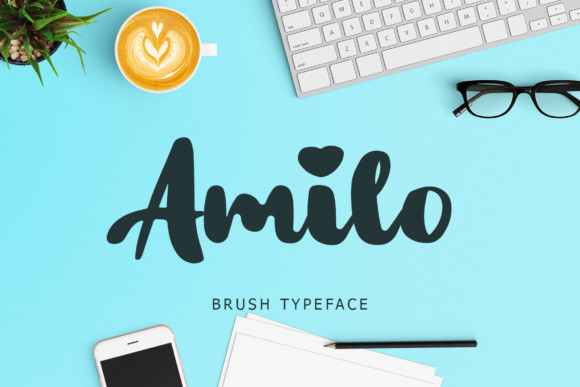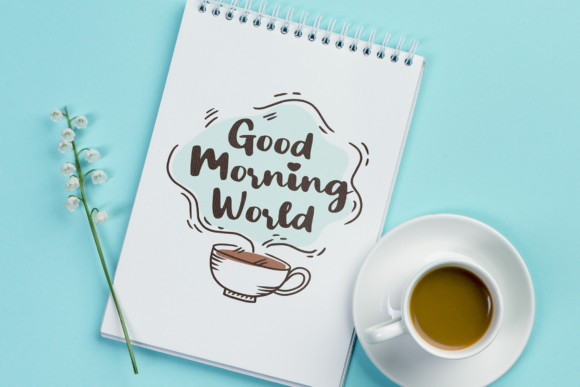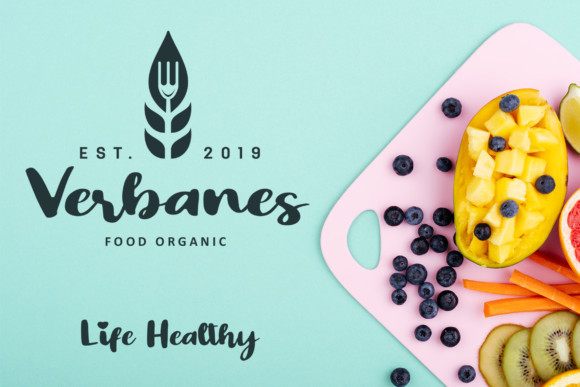
Amilo Font
Amilo is a lovely handwritten calligraphy font. This is a beautiful combination of authentic calligraphy and modern style. Amilo is the perfect font for making original and outstanding designs.